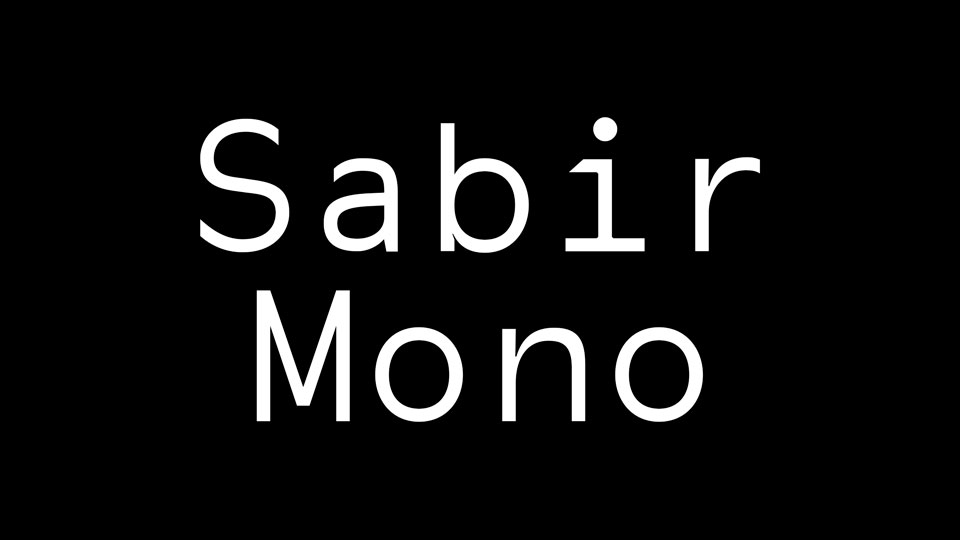
Sabir Mono Font
Sabir Mono is free monospaced typeface. Sabir is born from the practical desire to have access to a font that is easily usable for coding as well as for designing in small sizes.  It contains full set of glyphs, including uppercase and lowercase letters, numbers, symbols.  Sabir available for Latin, Cyrillic, Greek and Hebrew alphabets.